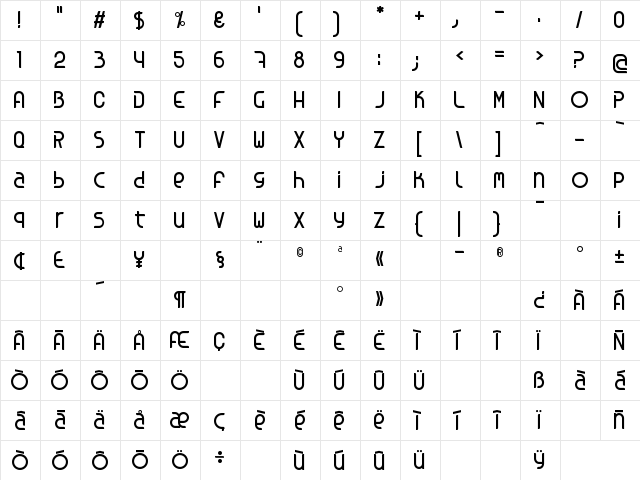
Kosova Regular
Design Context for Kosova Typeface
Kosova offers clean, dependable letterforms without strong stylistic allegiance, making it a practical choice for designers who need flexibility.